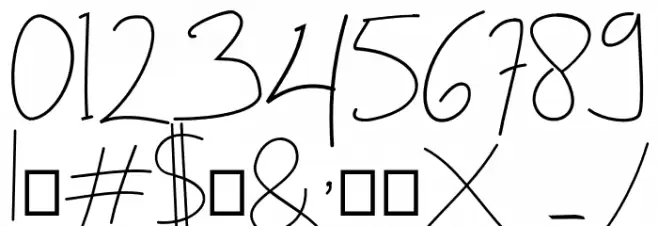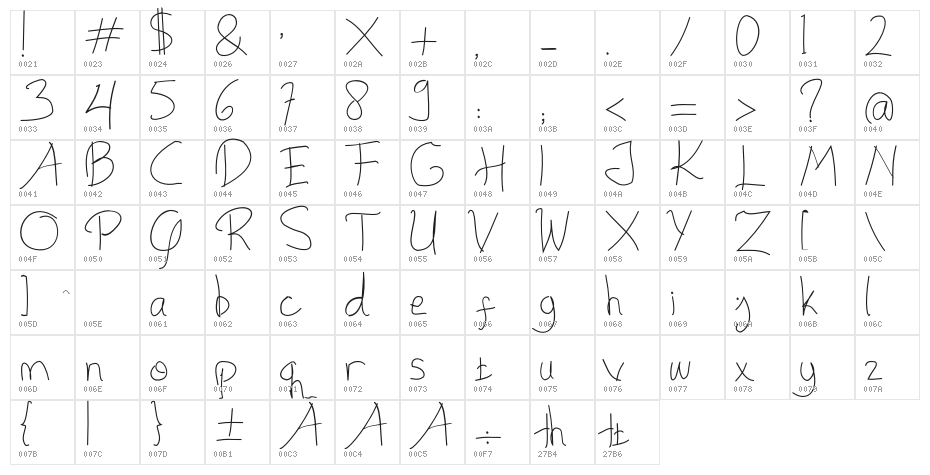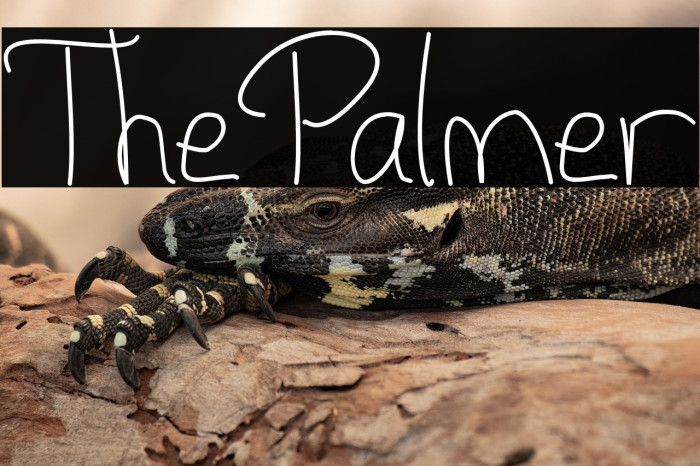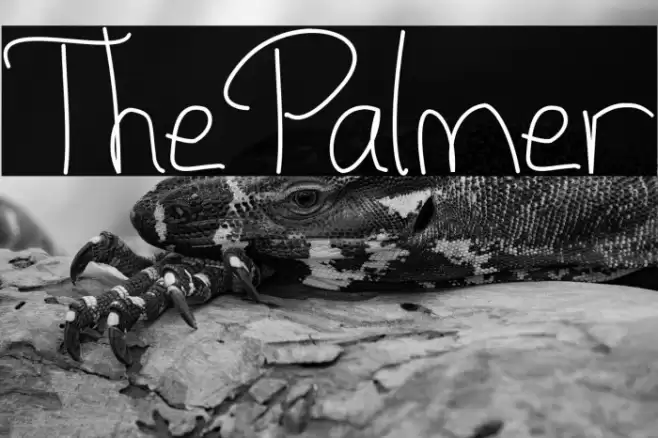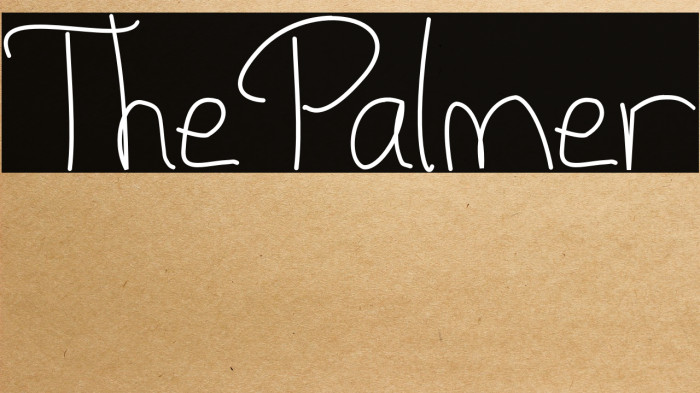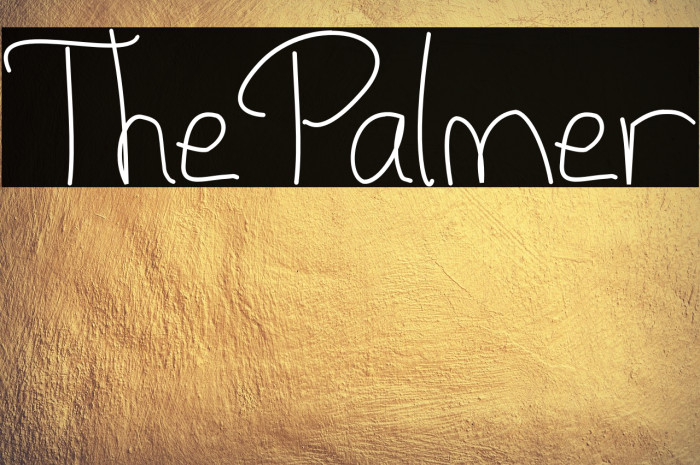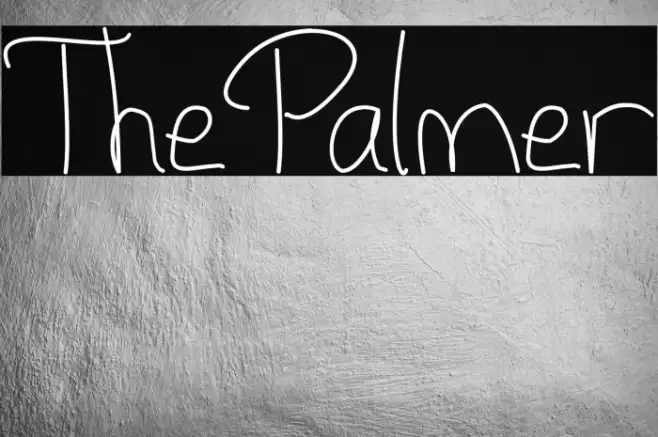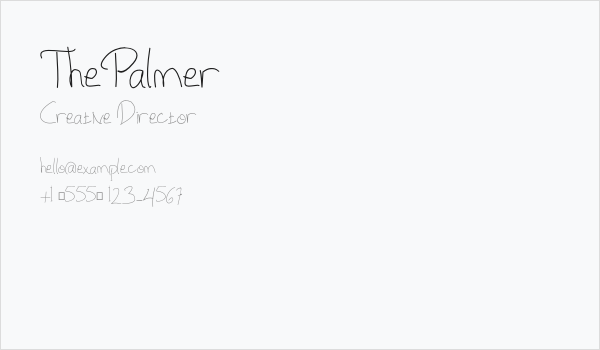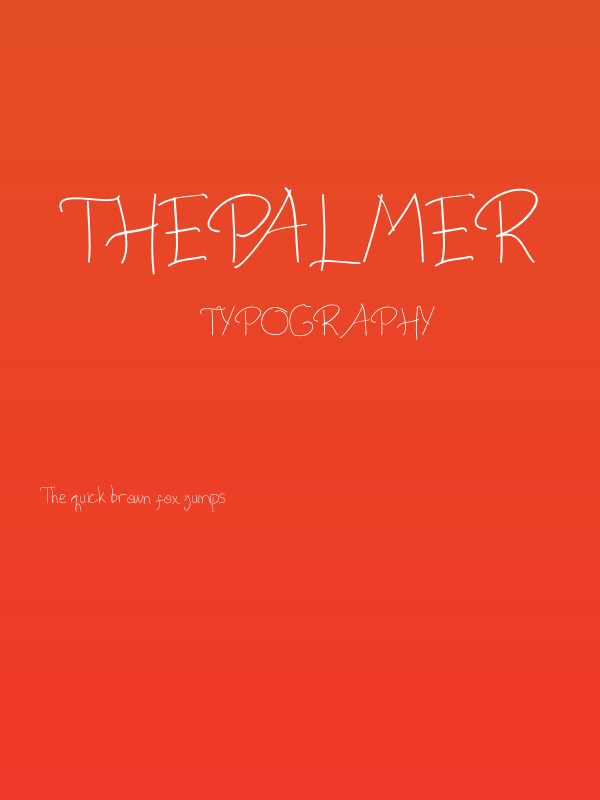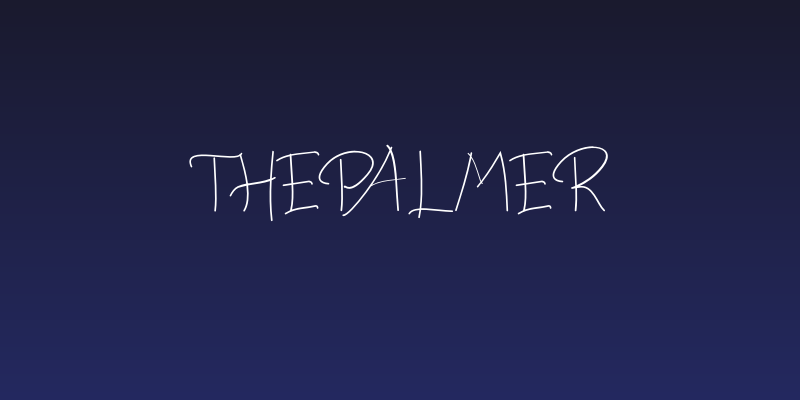
ThePalmer Font
ThePalmer Description
This font features a playful, handwritten style with a casual and informal appearance. The letters are characterized by their thin, uneven strokes and slightly irregular shapes, giving them a whimsical and artistic feel. The uppercase and lowercase letters maintain a consistent style, with a slight slant that adds to the dynamic nature of the font. The numerals and special characters follow the same design principles, ensuring a cohesive look across all characters. This font's unique personality makes it suitable for creative projects that require a touch of individuality and flair.
| Use Case | Logos, Invitations, Creative projects |
| Proposed Projects | Ideal for greeting cards, invitations, children's books, and creative branding projects. |